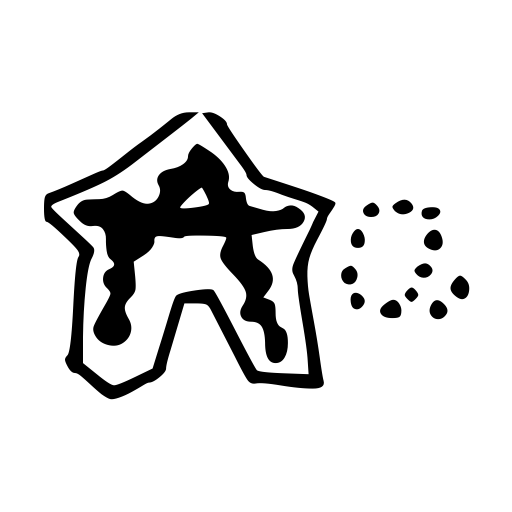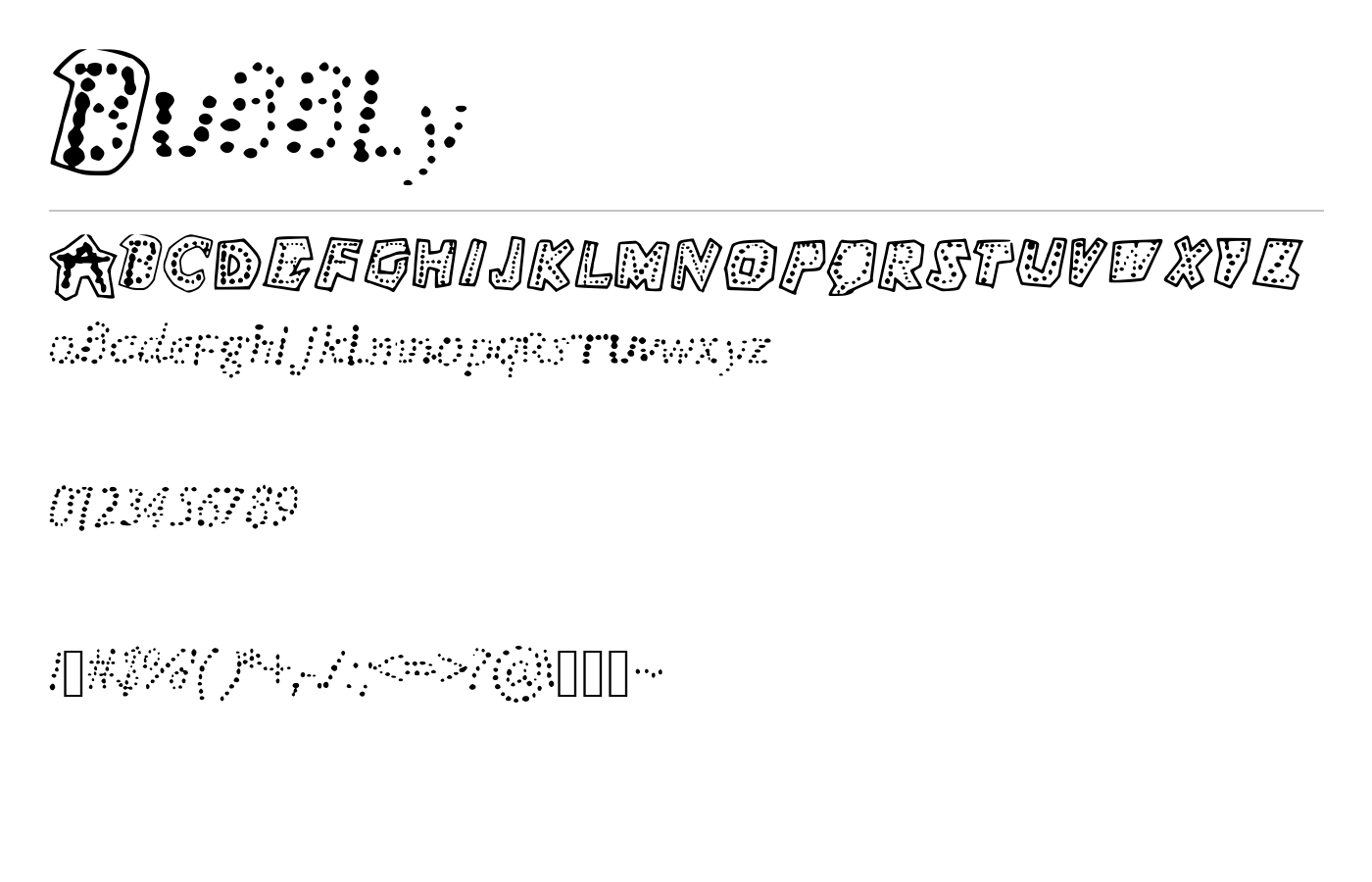
Bubbly Font is a playful and whimsical display typeface characterized by irregular, bubbly shapes formed from dots and outlined letters, giving it a fun and informal feel. Its lively, hand-drawn style works well for children's designs, party invitations, or any creative project aiming to convey energy and cheerfulness rather than serious or formal content. This decorative font shines best in headlines, logos, and eye-catching packaging where a joyful and unique personality is desired.
Bubbly Font